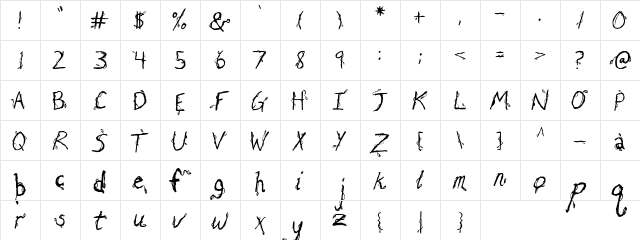
Fh_Euphoria Regular
Design Context for Fh_Euphoria Typeface
Fh_Euphoria is a composed and adaptable typeface that performs quietly and consistently across a wide range of design contexts.